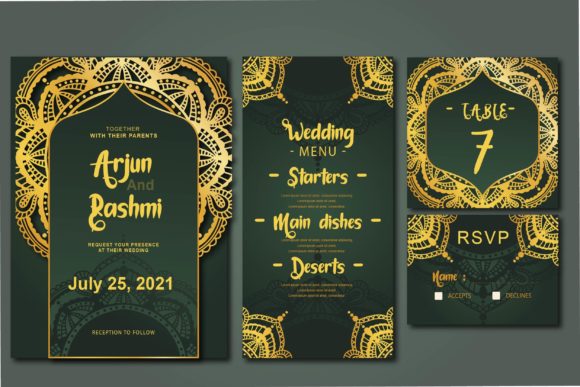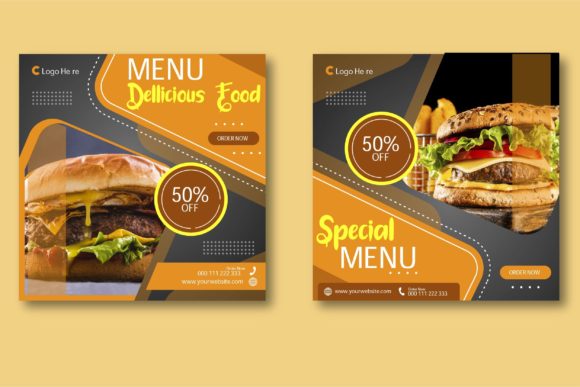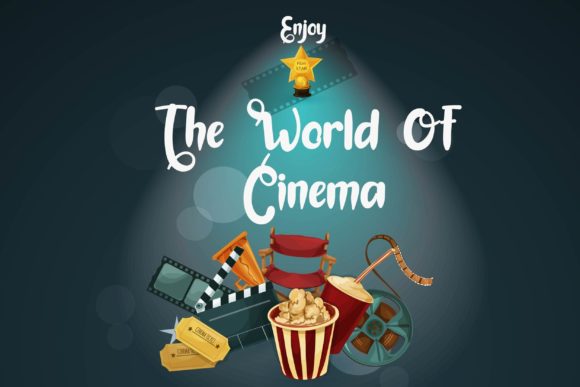
Introduction to Lodhangke Font
Lodhangke is a cute and flowing script font.
Whether you are using it for cartoon-related designs, children’s games, quotes, titles, brand names, book covers, posters, or just any creation that requires a touch of beauty, this font is a great choice Lodhangke is PUA encoded which means you can access all of the glyphs and swashes with ease.
Lodhangke Font offers exceptional quality and versatility, making it a valuable addition to your design toolkit. Whether you’re creating for personal projects or commercial use, Lodhangke Font delivers professional results.